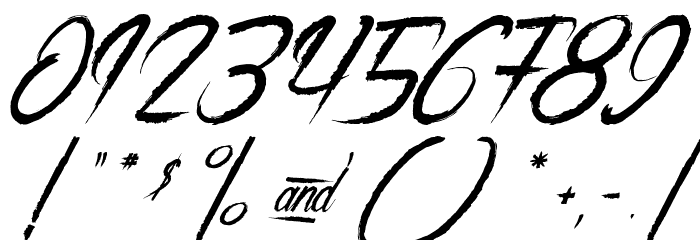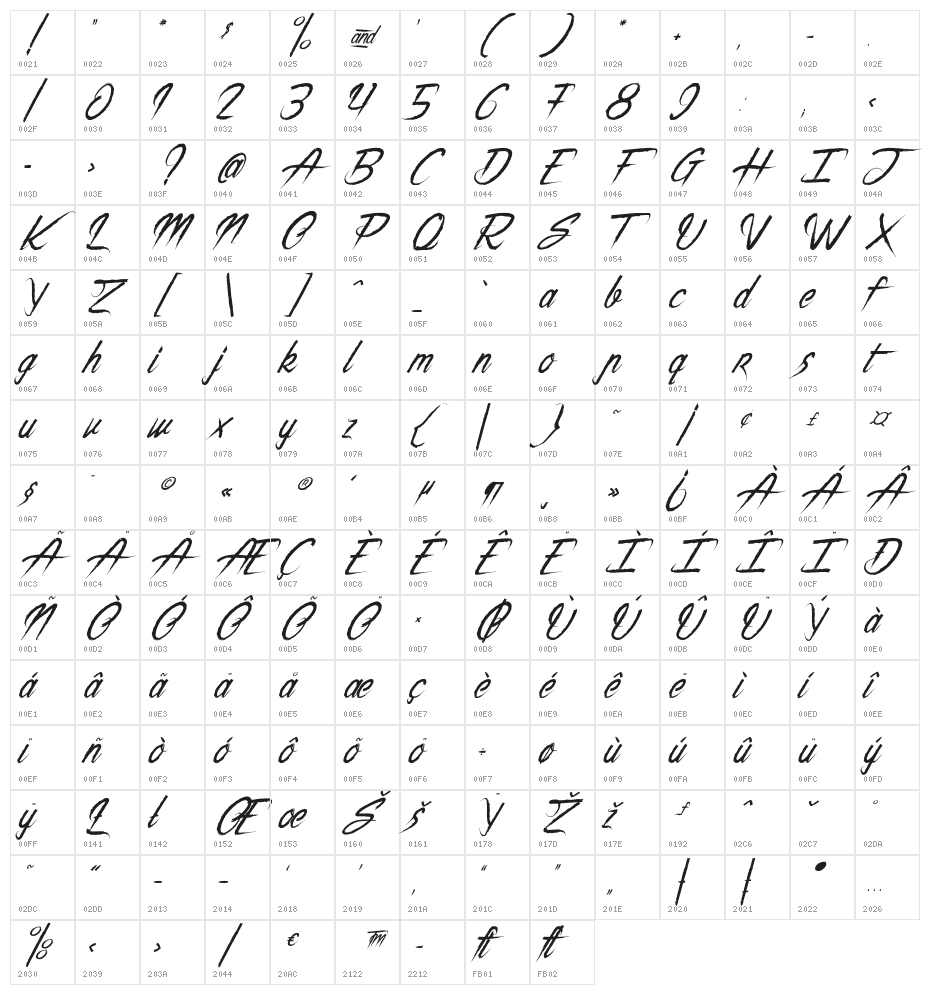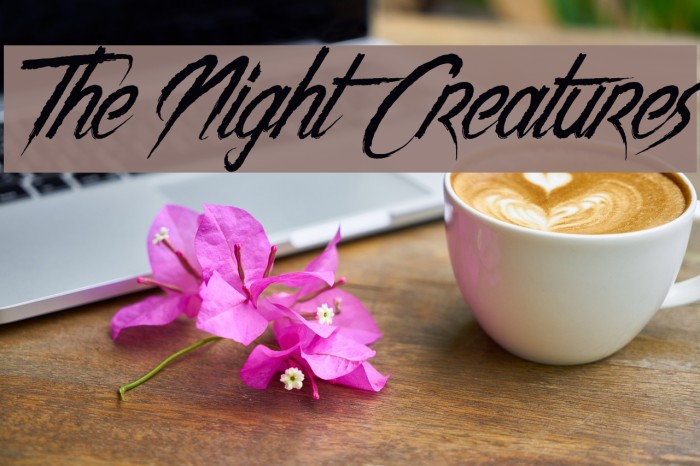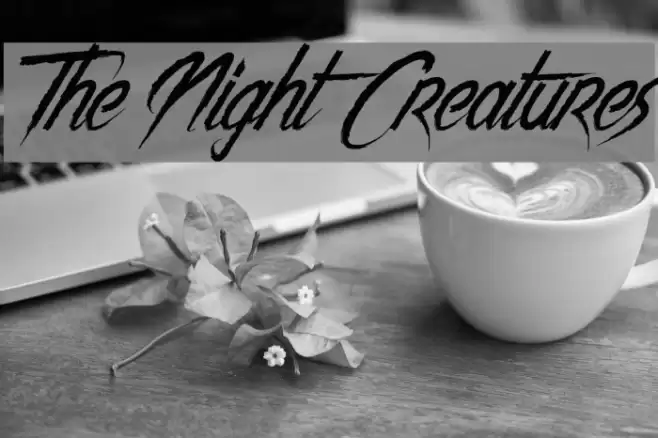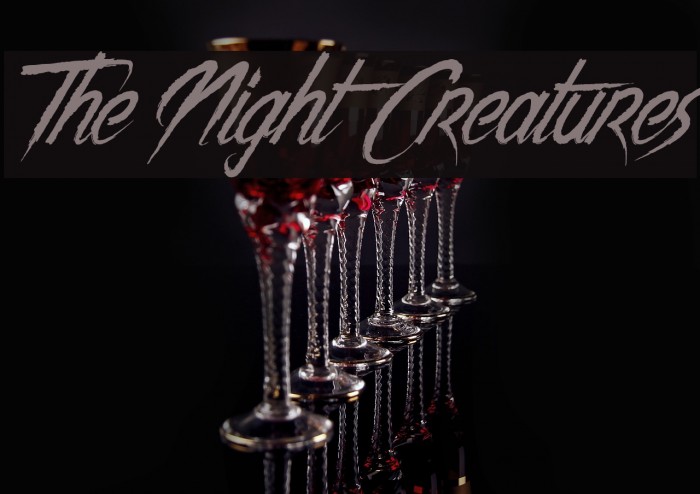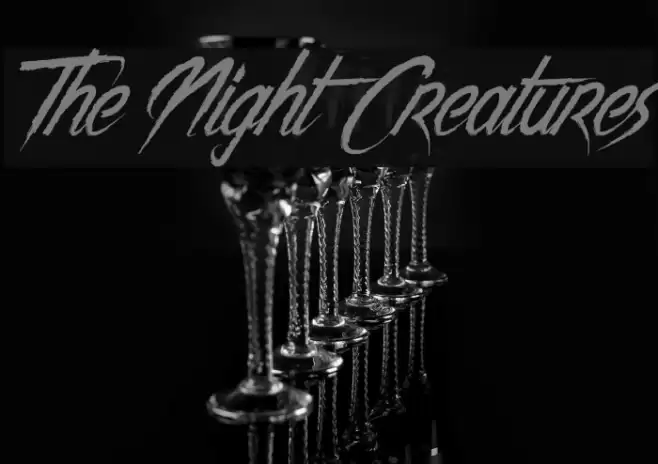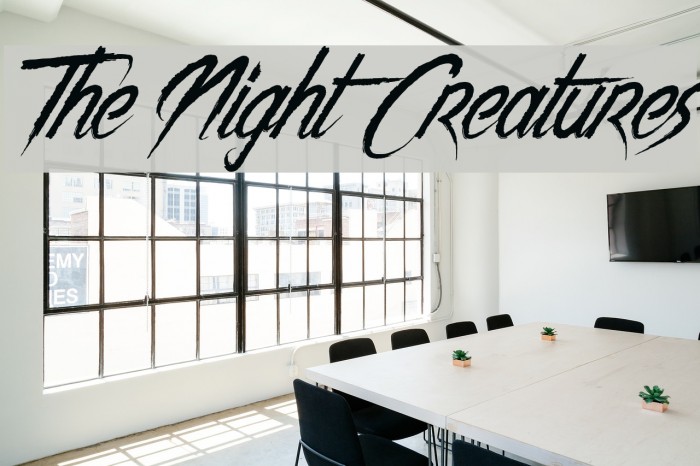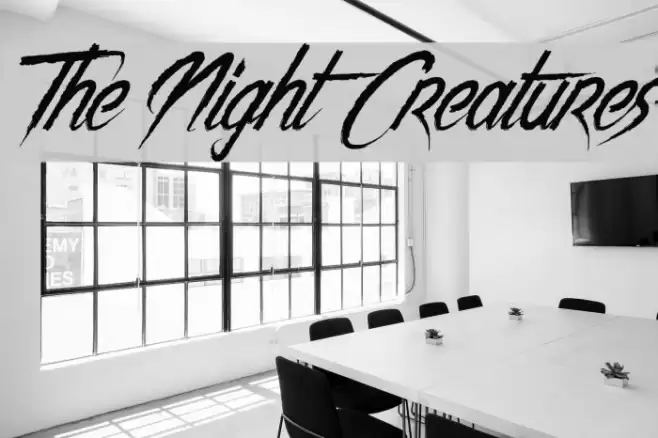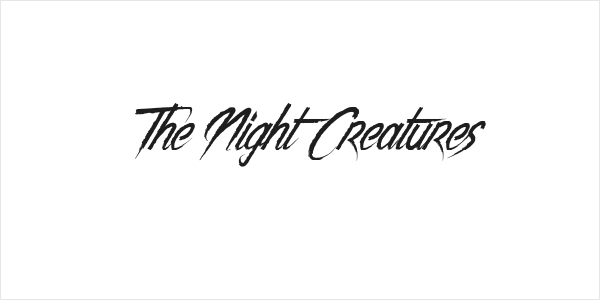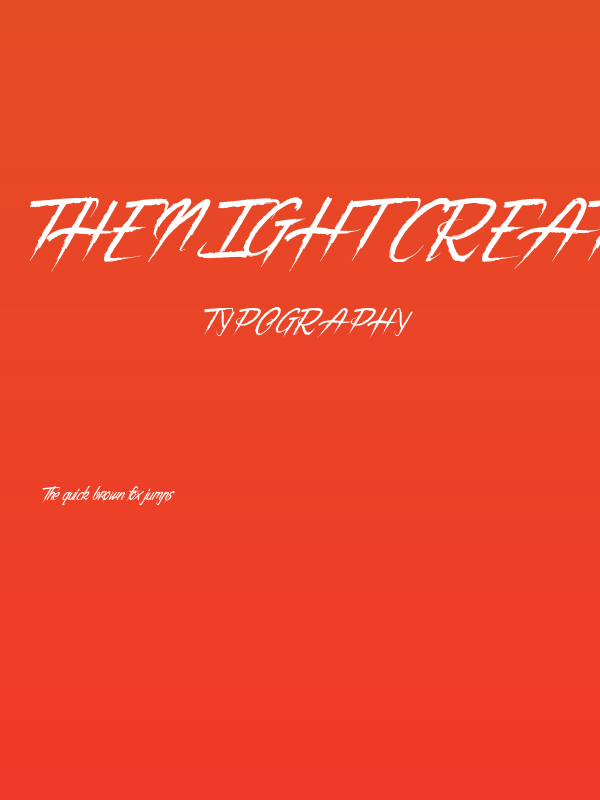
The Night Creatures Font
The Night Creatures Description
This font exhibits a dynamic and edgy style, characterized by sharp, angular strokes and a sense of movement. The uppercase letters are bold and slightly slanted, giving a sense of urgency and energy. The lowercase letters maintain this dynamic quality, with some letters featuring unique, exaggerated flourishes. The numbers are consistent with the overall style, maintaining the sharpness and boldness seen in the alphabet. Special characters are creatively integrated, adding to the font's distinctive personality. This font is ideal for projects that require a bold, impactful statement, such as posters, album covers, or branding for edgy, modern products.
| Proposed Projects | Ideal for posters, album covers, or branding for modern, edgy products. |